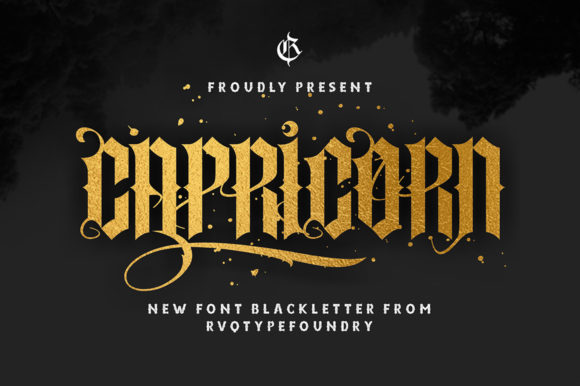
Embrace the grandeur of bygone eras with Capricorn Font, the blackletter masterpiece that exudes elegance and vintage charm. Crafted by the renowned Rvq Type Foundry, Capricorn is a journey through time, transporting you to a realm of sophistication and regal beauty.
With its intricate letterforms and sweeping curves, Capricorn Font captivates the eye, inviting you to explore the depths of its timeless allure. Each glyph is a testament to the artistry of the past, meticulously designed to evoke a sense of nostalgia and grandeur. The result is a font that transcends the boundaries of time, bridging the gap between the old and the new.
Unleash the power of Capricorn Font and elevate your digital magazine to new heights of distinction. Its regal presence commands attention, demanding respect and admiration from your readers. Whether you're crafting captivating headlines, alluring subheadings, or immersive body text, Capricorn Font will leave an indelible mark on your audience's minds.
Dive into the world of sophistication and let Capricorn Font guide you through the labyrinth of creativity. Its timeless elegance will transform your digital magazine into a masterpiece, capturing the essence of luxury and refinement. With each stroke of Capricorn's brush, you'll paint a picture of timeless beauty, leaving your readers spellbound and yearning for more.
Capricorn Font is more than just a font; it's an experience. It's an invitation to immerse yourself in the world of sophistication and elegance. Its blackletter charm will transport you to a bygone era, where the written word was an art form. Embrace the power of Capricorn Font and let your digital magazine shine with unparalleled brilliance.